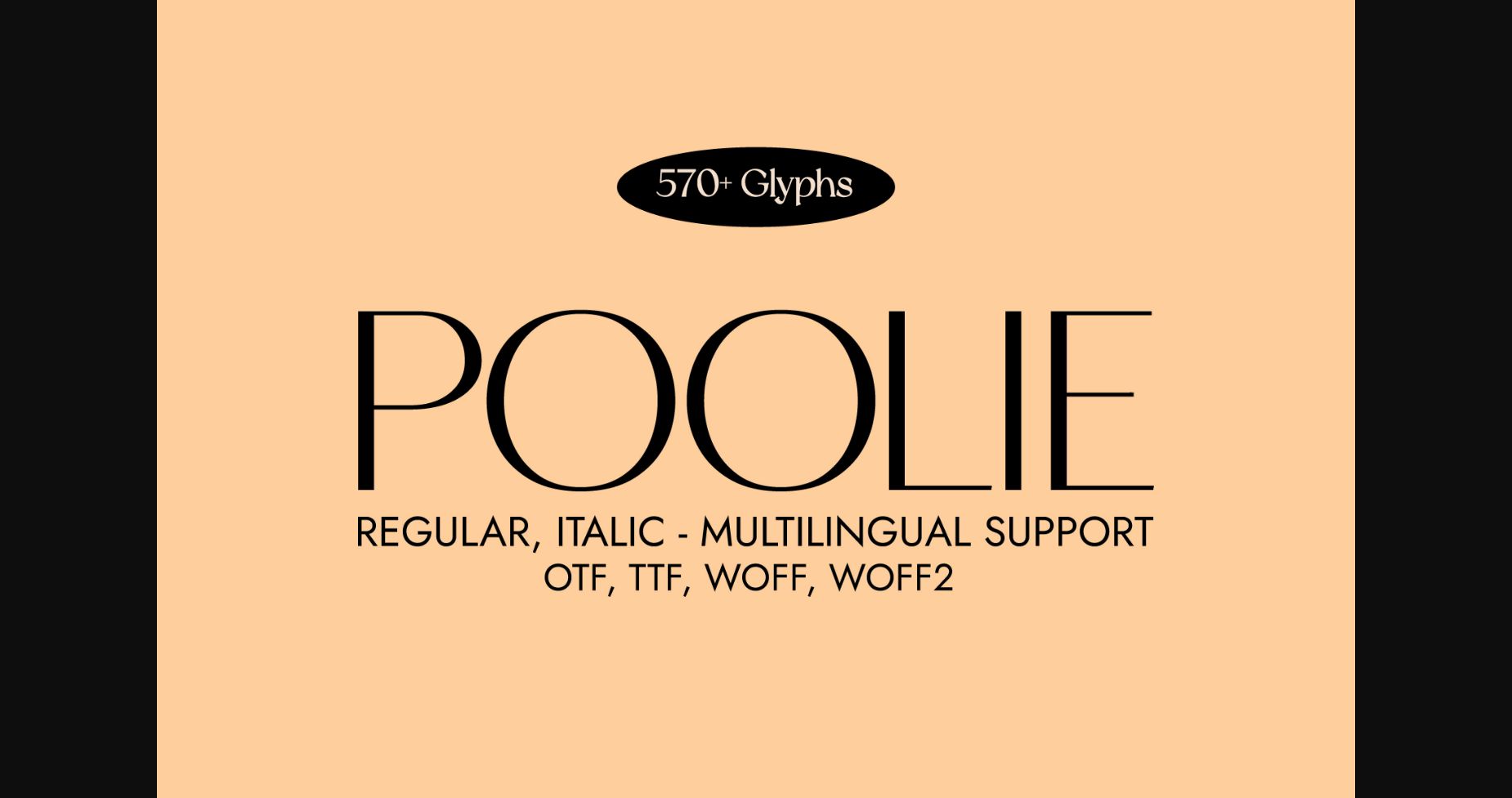
About Poolie Font
Introducing Poolie a minimalist and modern sans serif typeface that embodies elegance. With delicate lines and refined curves, this versatile font seamlessly blends with any design style. Its balanced letterforms ensure readability, while a range of weights allooolie, the timeless choice for your design projects.